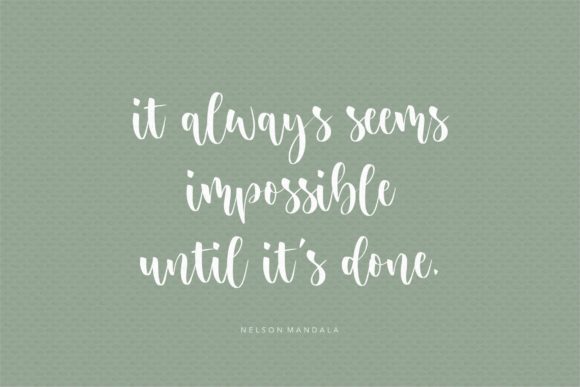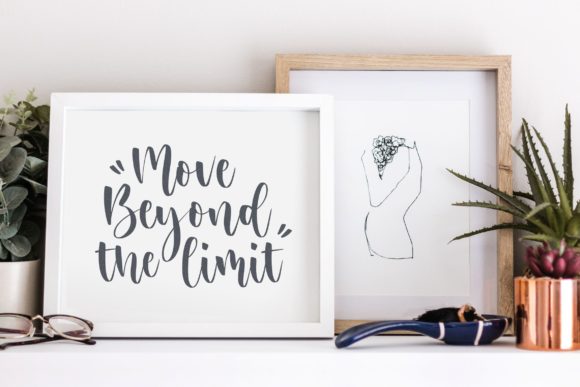
Sisterhood Font
db-ku.com - Script & Handwritten -- Sisterhood is an elegant and beautiful handwritten font. Use it for any design projects that require a charming appearance!